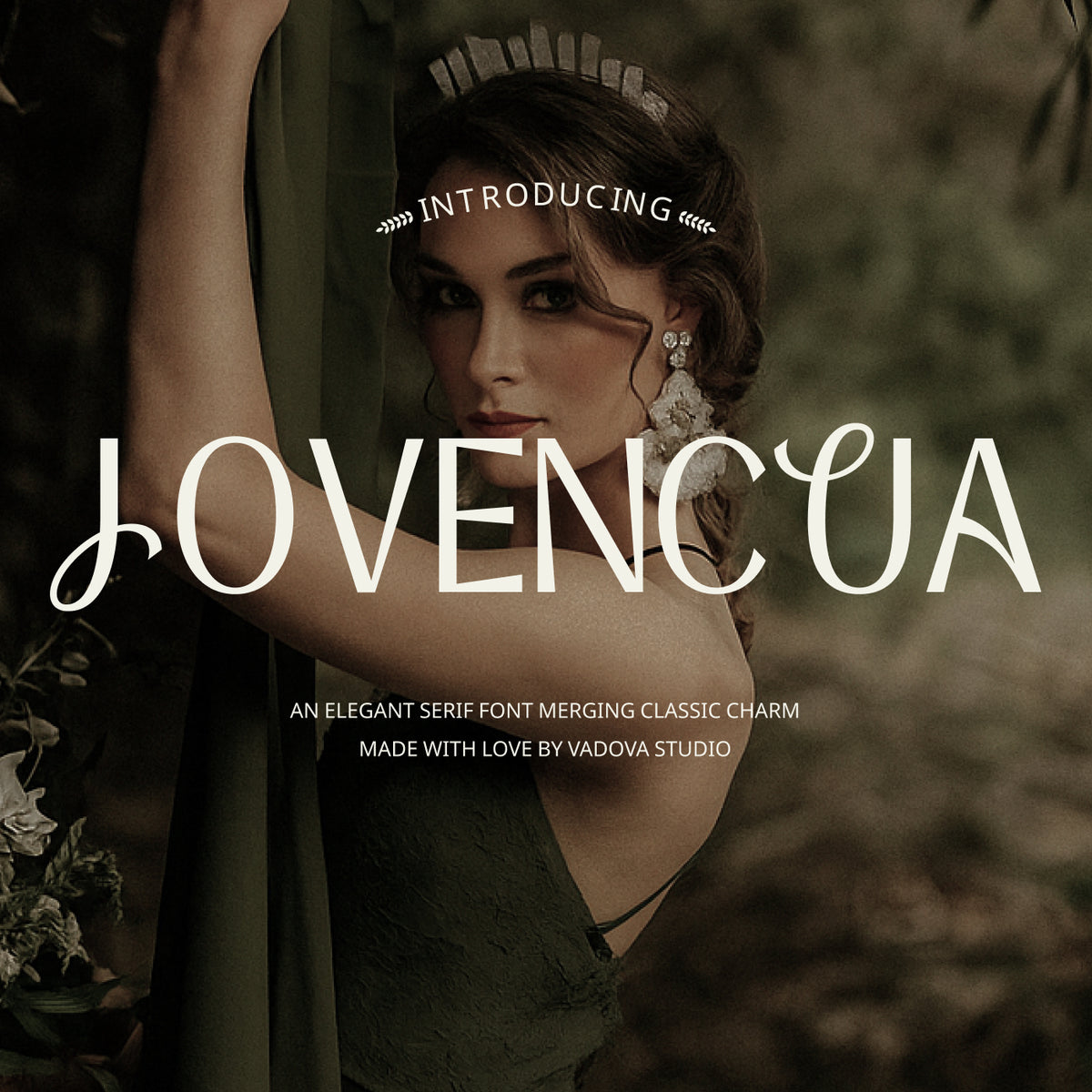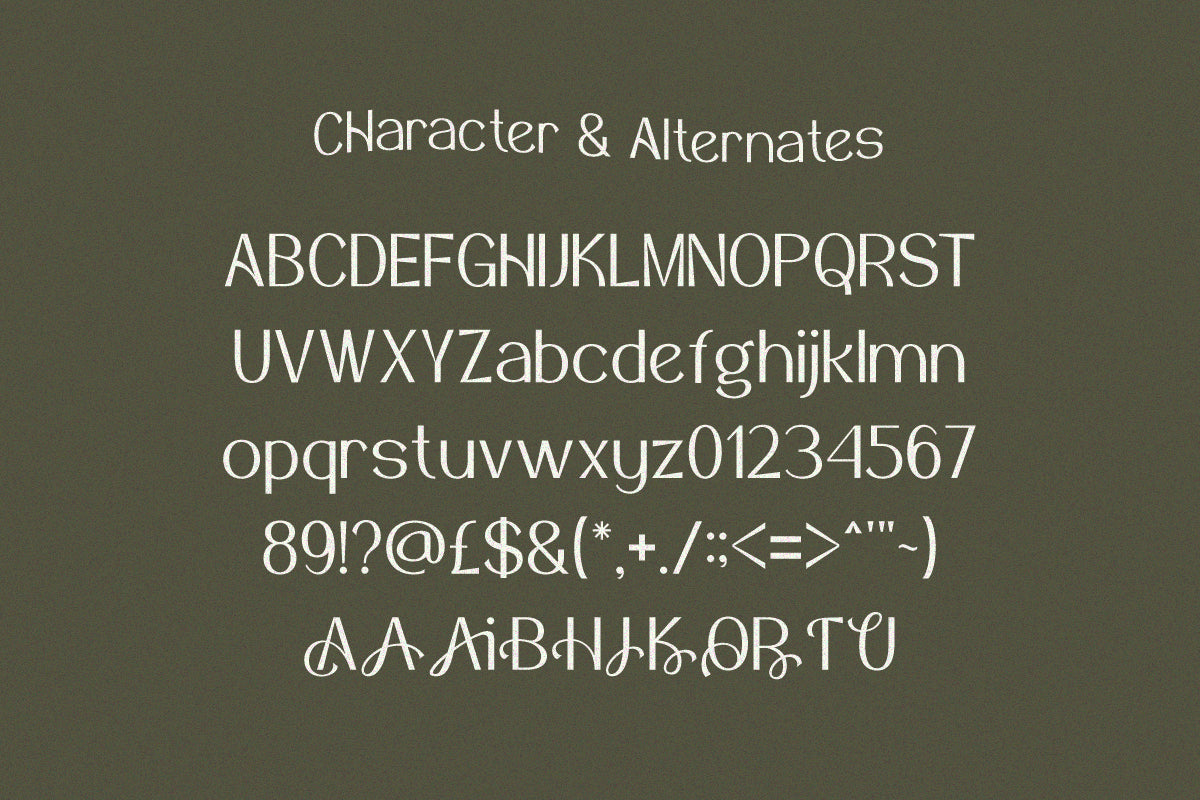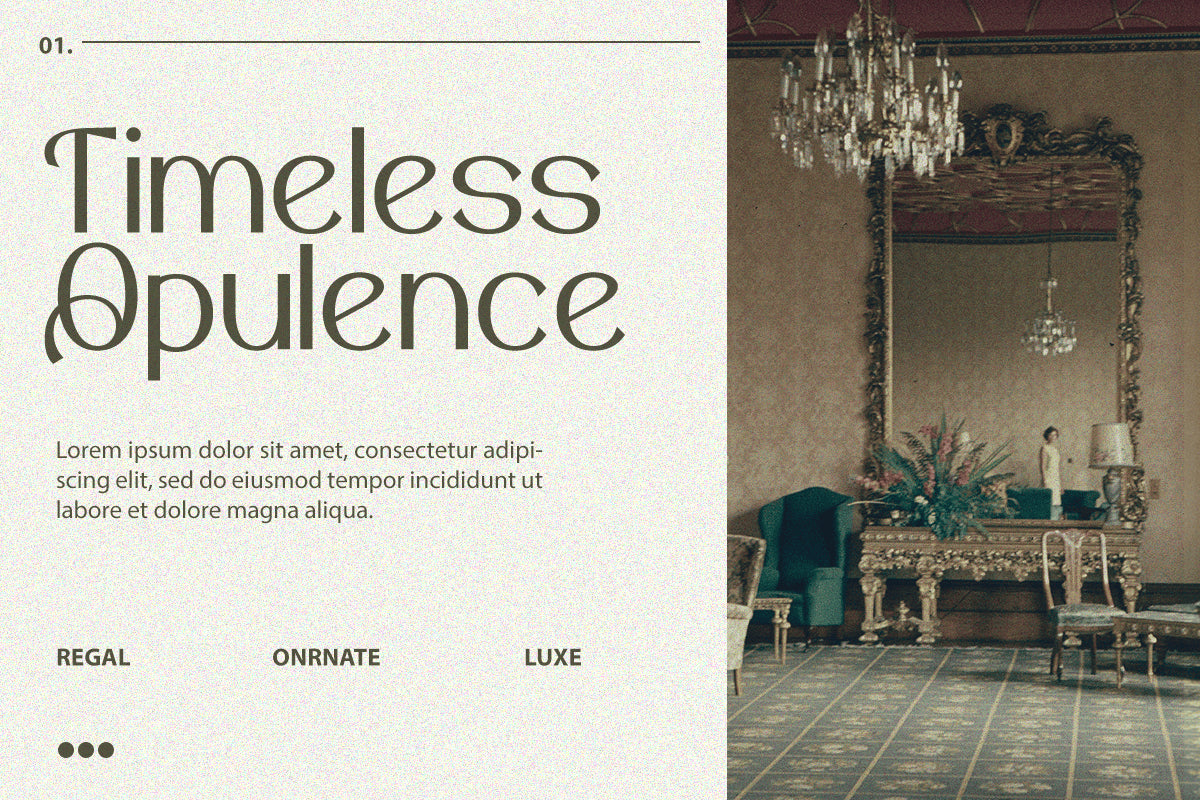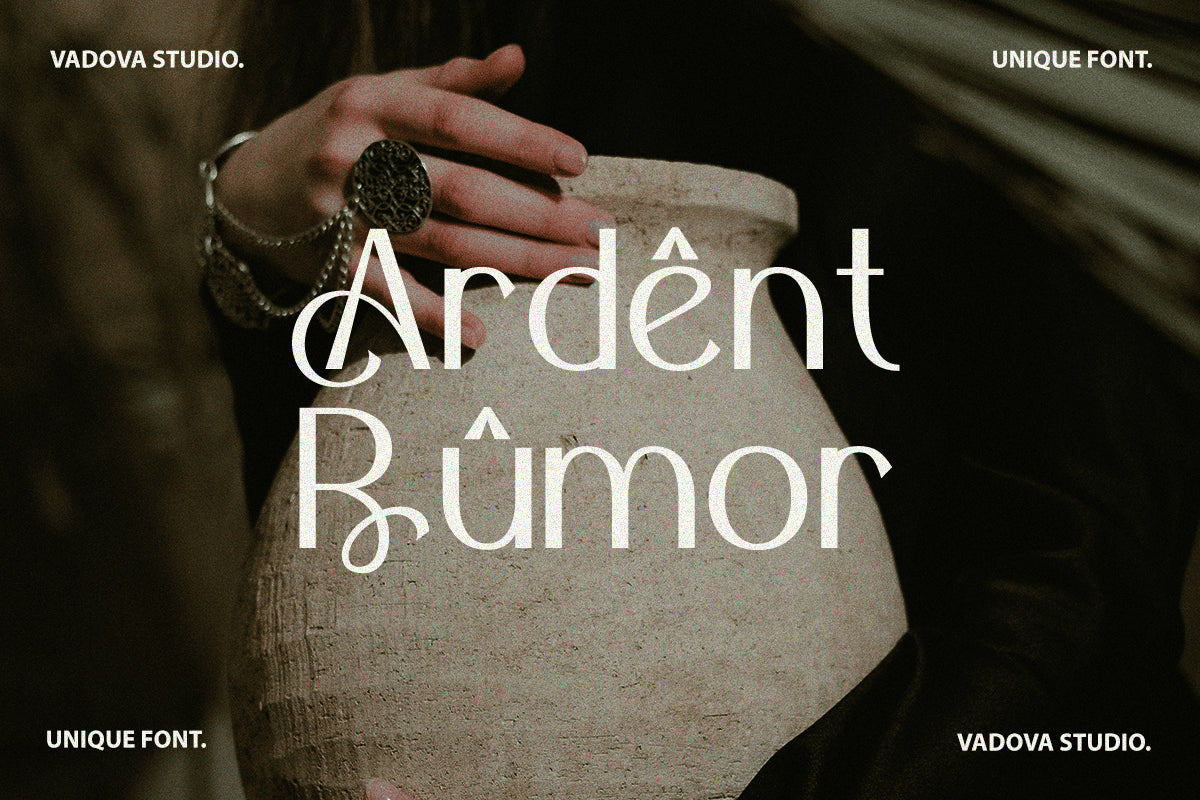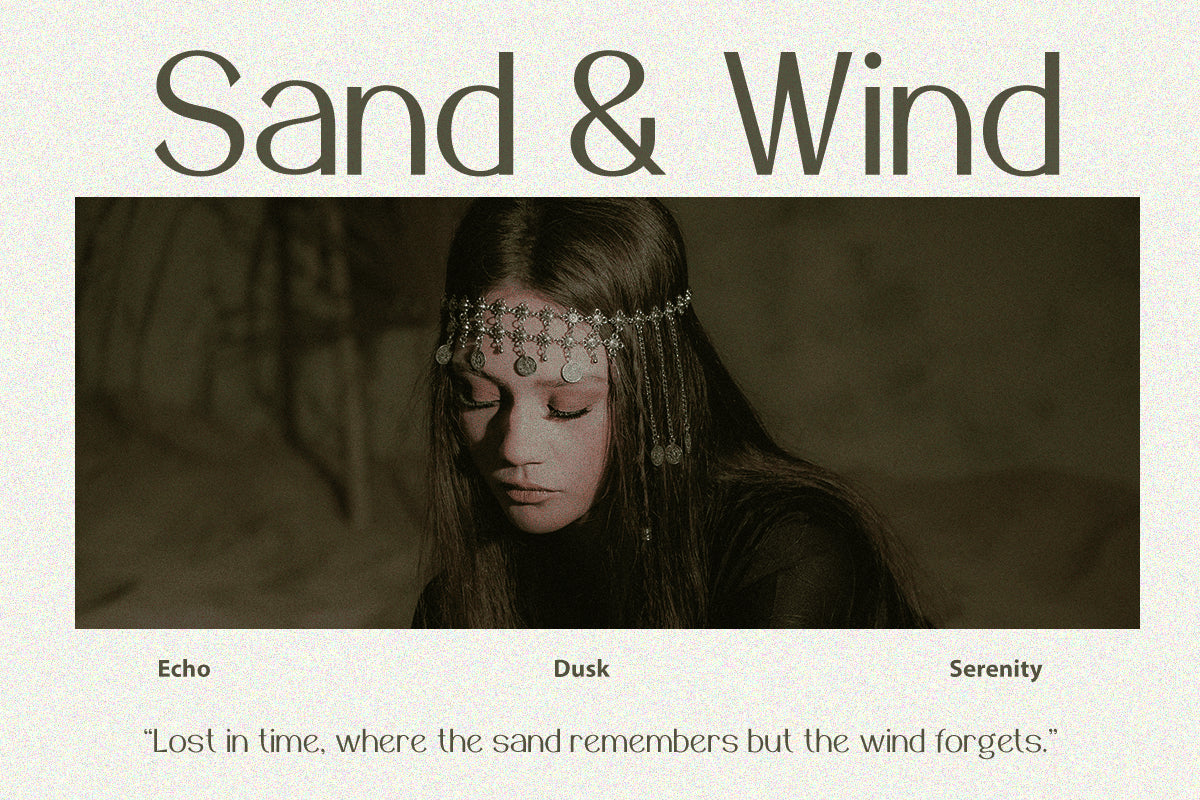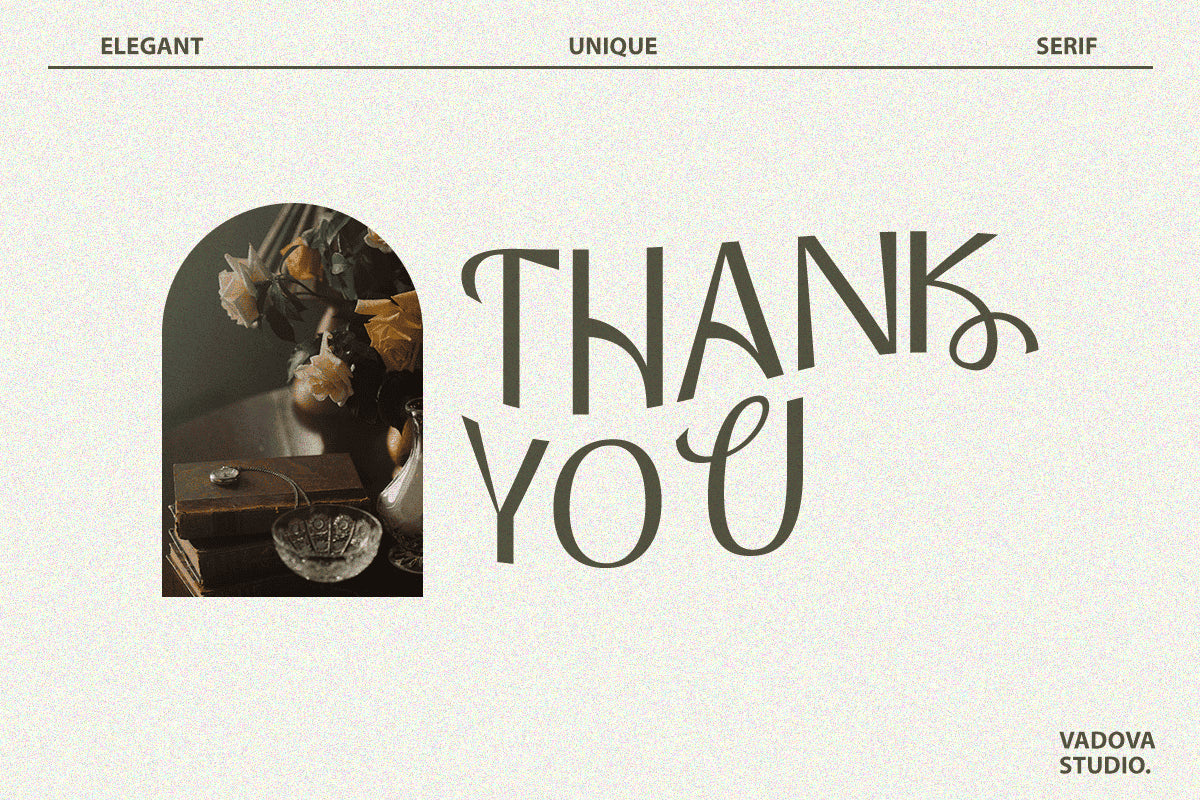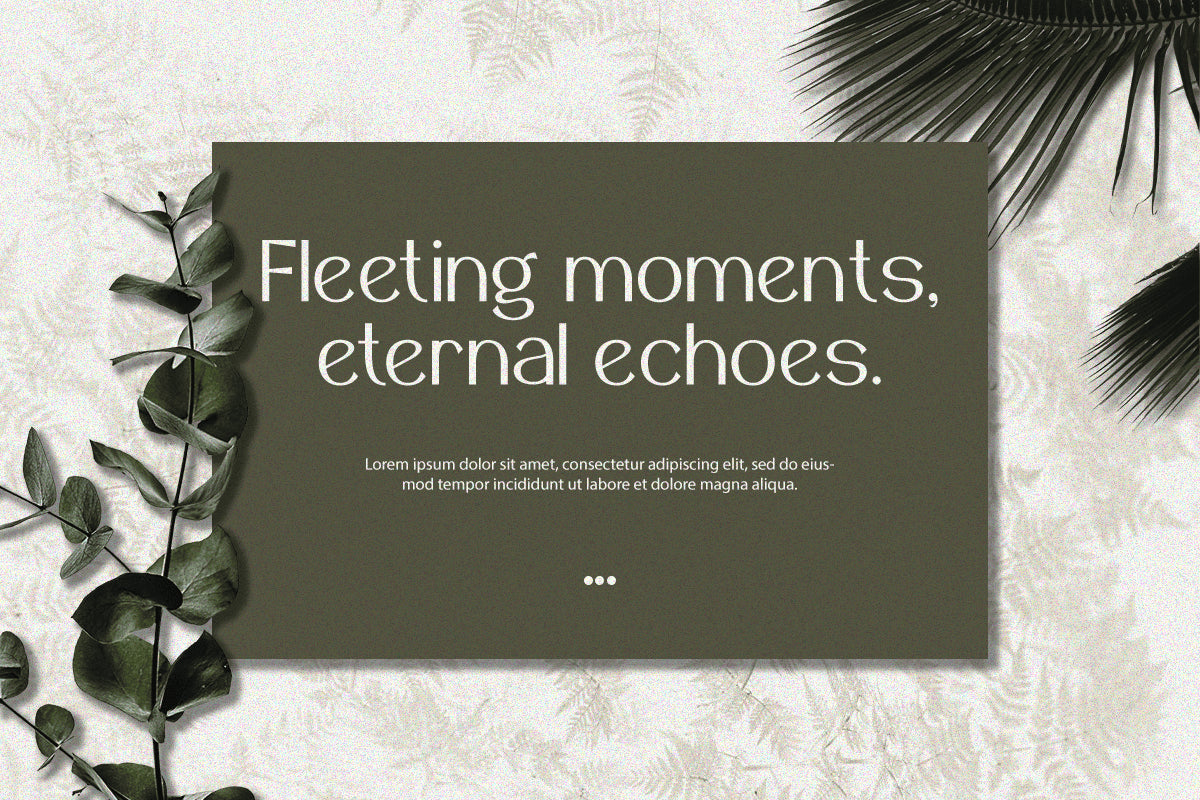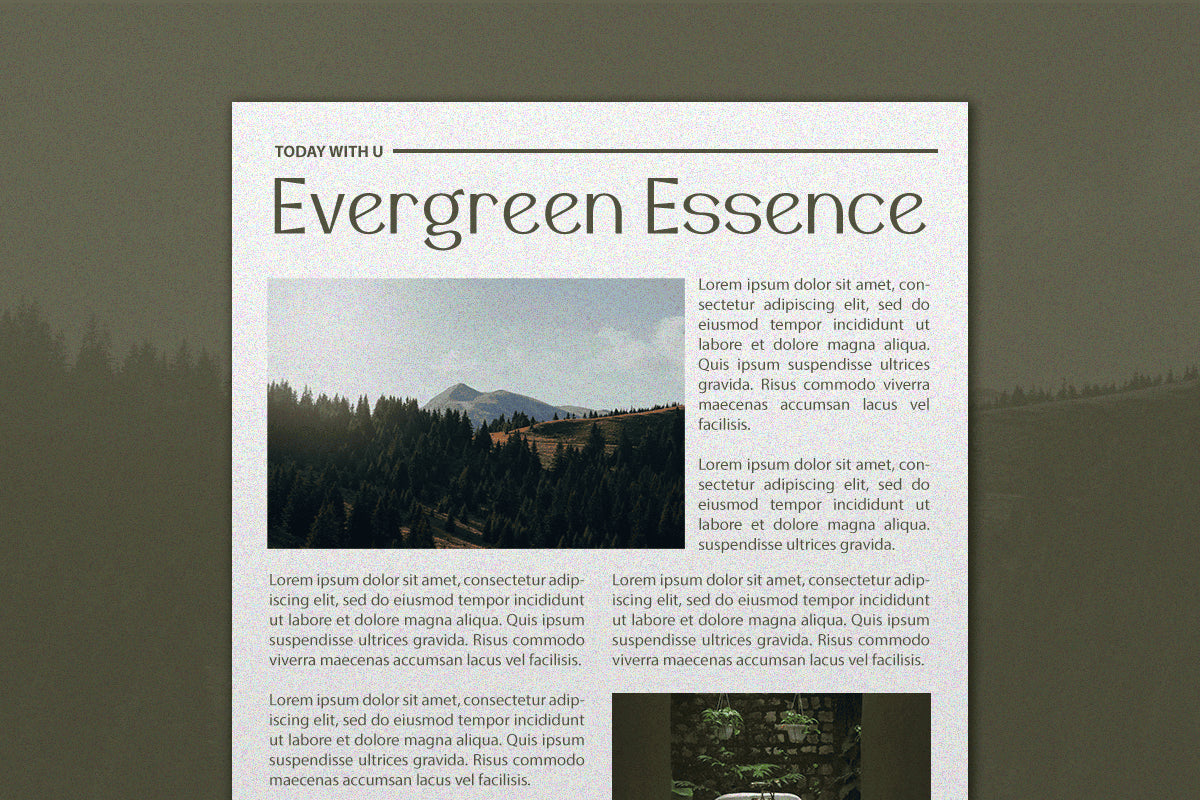
Jovencua Elegant Serif Font
Jovencua is a refined serif typeface with soft sweeping strokes, high contrast curves, and a vintage-inspired essence. Its ornamental letterforms merge Art Nouveau aesthetics with modern sensibility, making it ideal for nostalgic yet sophisticated visual themes. Designed with expressive ligatures and unique alternates, Jovencua offers rich personality while retaining clear legibility in both display and subhead formats. The font is optimized for high-resolution editorial layouts and branding applications where timeless elegance is essential.
Jovencua Elegant Serif Font is a serif typeface featuring soft sweeping strokes, high contrast curves, expressive ligatures, and unique alternates. It includes uppercase and lowercase characters, numerals, and punctuation, and is available in TTF, OTF, and WOFF formats.